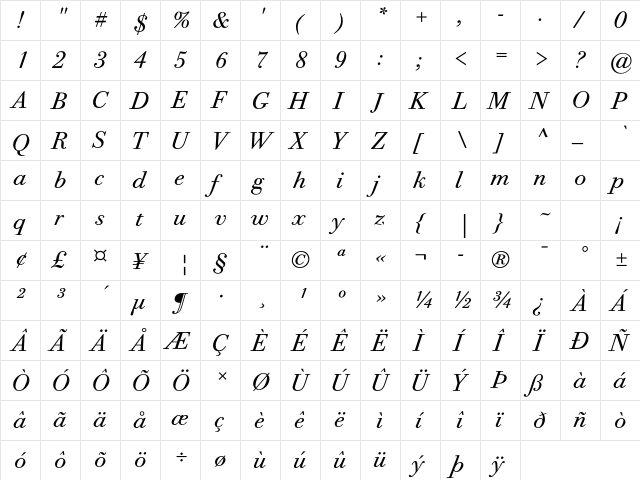
Bodoni Twelve ITC Std Book Ita
| Designer | Janice Fishman, Holly Goldsmith, Jim Parkinson, Sumner Stone |
Design Context for Bodoni Twelve ITC Std Typeface
Bodoni Twelve ITC Std takes a measured approach to typography — its balanced proportions and neutral character make it a reliable workhorse for both digital and print work. Its italic angle brings a sense of urgency and motion to the letterforms.
Pro Tip: Use Bodoni Twelve ITC Std for emphasis, pull quotes, and subheadings where its slanted energy can add rhythm to the layout.